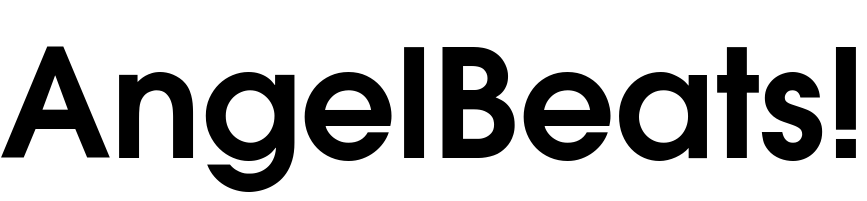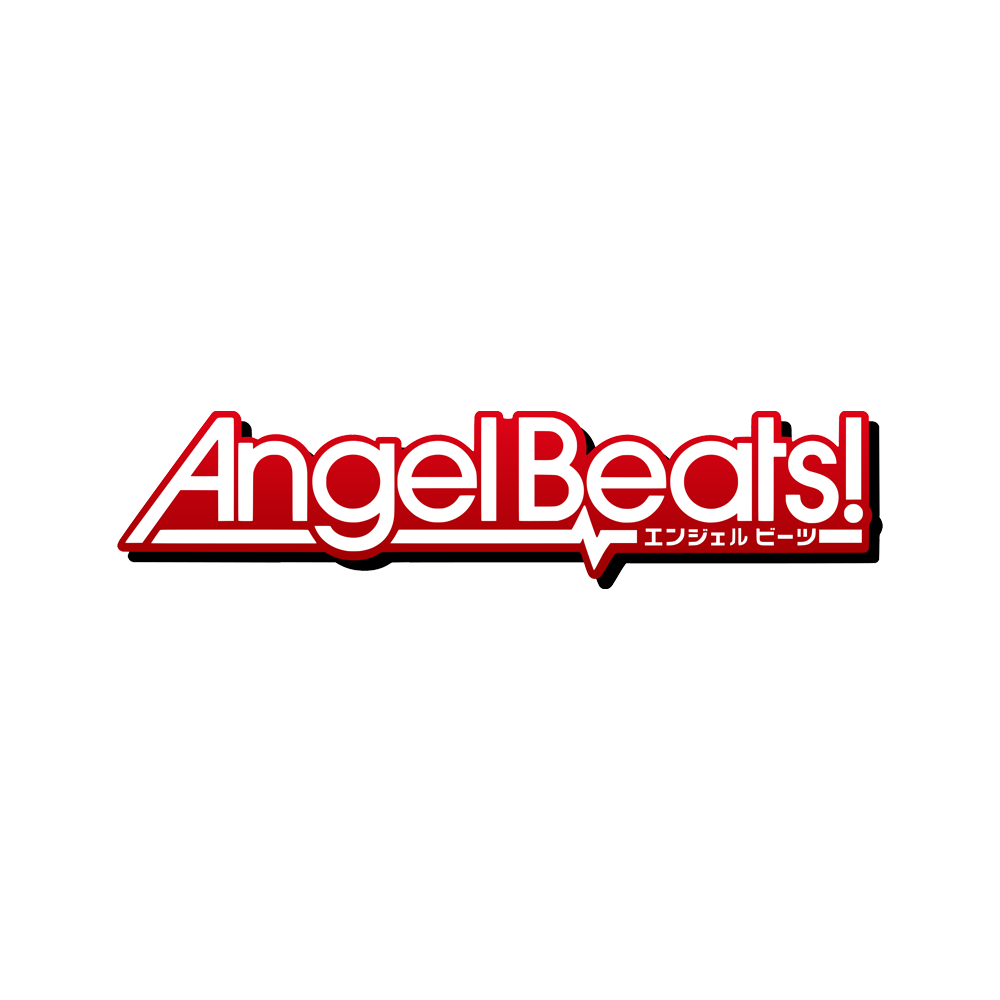
Angel Beats! Font
BookAngel Beats! is an anime series created by Jun Maeda. It features a group of deceased students in the afterlife who battle an enigmatic girl, while dealing with themes of life and death.
The Angel Beats! TV series logo uses ITC Avant Garde Gothic DemiBold, which is a geometric sans serif based on the logo font of Avant Garde magazine. Herb Lubalin designed the logo concept and its accompanying headline typeface. In collaboration with Tom Carnase, Lubalin's design partner, he transformed the idea into a full-fledged typeface.